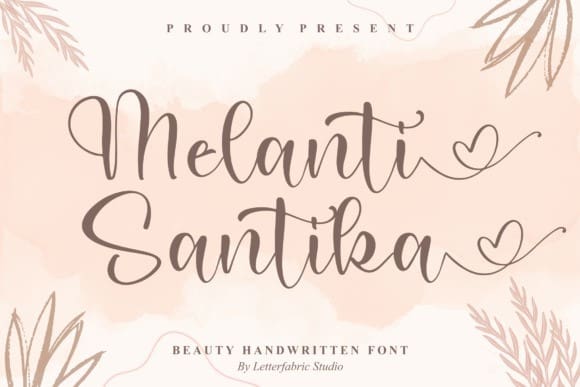
Melanti Santika Font
Melanti Santika Font,  is a beautiful and light handwritten font with a unique feel and a stunning impact. It will add a luxury spark to any design project that you wish to create! This font is PUA encoded which means you can access all of the amazing glyphs and ligatures with ease!